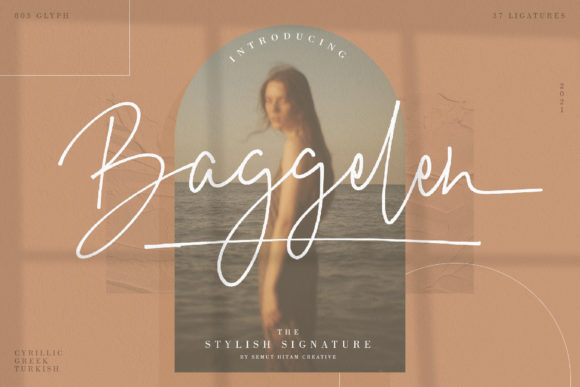
Baggelen Font: Elevate Your Designs with Elegance and Sophistication
In the world of typography, a font can make or break a design. For designers and crafters looking to add a touch of class and modernity to their work, Baggelen Font is an excellent choice. This thin lettered and fashionable script font is perfect for creating stunning logos, branding materials, invitations, stationery, wedding designs, social media posts, and more.
The Characteristics of Baggelen Font
Baggelen Font boasts a classy, elegant, and modern look that sets it apart from other fonts. Its thin letters exude a sense of sophistication and refinement, making it ideal for designs that require a high level of poise and luxury. The font’s script style is perfect for adding a personal touch to your work, while its modern aesthetic ensures that your designs stay fresh and contemporary.
Uses of Baggelen Font
The versatility of Baggelen Font is one of its most significant advantages. This font can be used in a wide range of design applications, including:
- Invitations and Stationery: Add a touch of elegance to your invitations, business cards, and letterheads.
- Wedding Designs: Make your wedding stationery, invitations, and decorations truly unforgettable with Baggelen Font.
- Social Media Posts: Elevate your social media game with stylish and modern text overlays that grab attention.
Why Choose Baggelen Font?
With so many fonts available, why choose Baggelen Font? Here are just a few reasons:
- Unique and Modern Design: Baggelen Font’s thin lettered and script style ensures that your designs stand out from the crowd.
- Elegant and Sophisticated: The font’s classy and refined aesthetic makes it perfect for luxury brands and high-end designs.
- Versatile: Baggelen Font can be used in a wide range of design applications, from logos and branding to social media posts.
- User-Friendly: The font is easy to read and works well in both digital and print formats.
Tips for Using Baggelen Font
To get the most out of Baggelen Font, here are a few tips:
- Pair with Bold Fonts: Combine Baggelen Font with bold fonts for a striking contrast that adds visual interest.
- Experiment with Colors: Try out different colors and gradients to add depth and dimension to your designs.
- Play with Size: Use Baggelen Font in various sizes to create visual hierarchy and emphasis.
Baggelen Font is a stylish and modern script font that can elevate your designs to new heights. Its elegant and sophisticated aesthetic makes it perfect for luxury brands, wedding designs, and high-end applications. With its versatility, unique design, and user-friendly nature, Baggelen Font is an excellent addition to any designer’s toolkit. So why wait? Download Baggelen Font today and start creating stunning designs that leave a lasting impression!